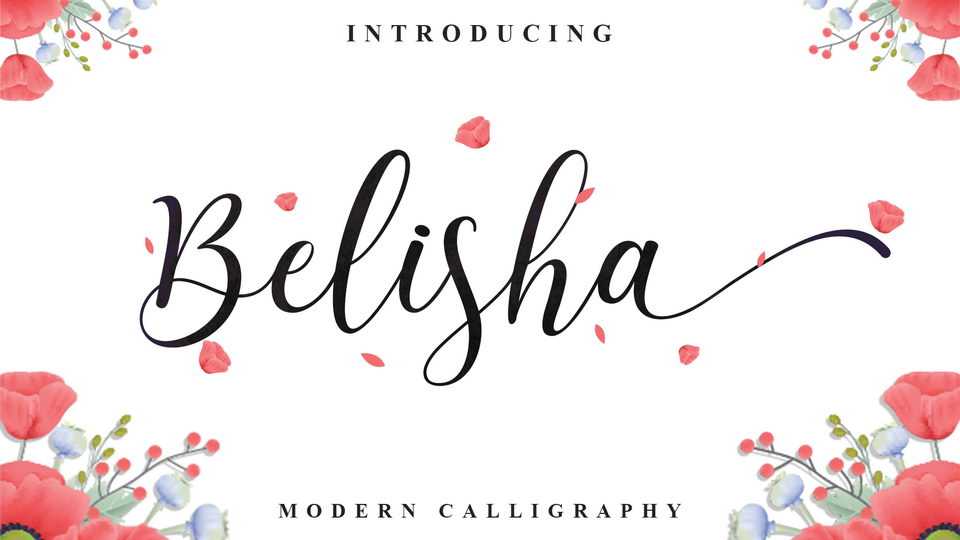
Download Belisha font, a beautiful modern calligraphy typeface perfect for feminine, elegant, and luxurious designs. Belisha has a fresh look that can be used for greeting cards, wedding designs, branding materials, quotes, posters, and much more.
Designer: MJB Letters